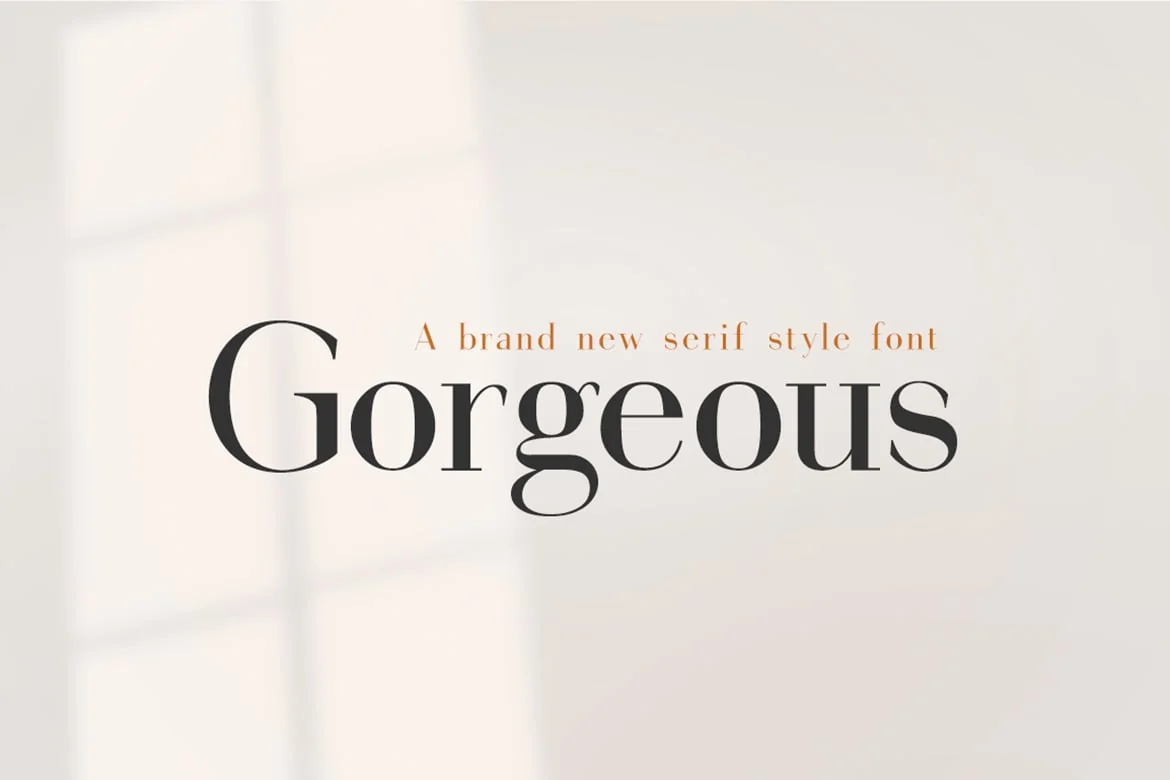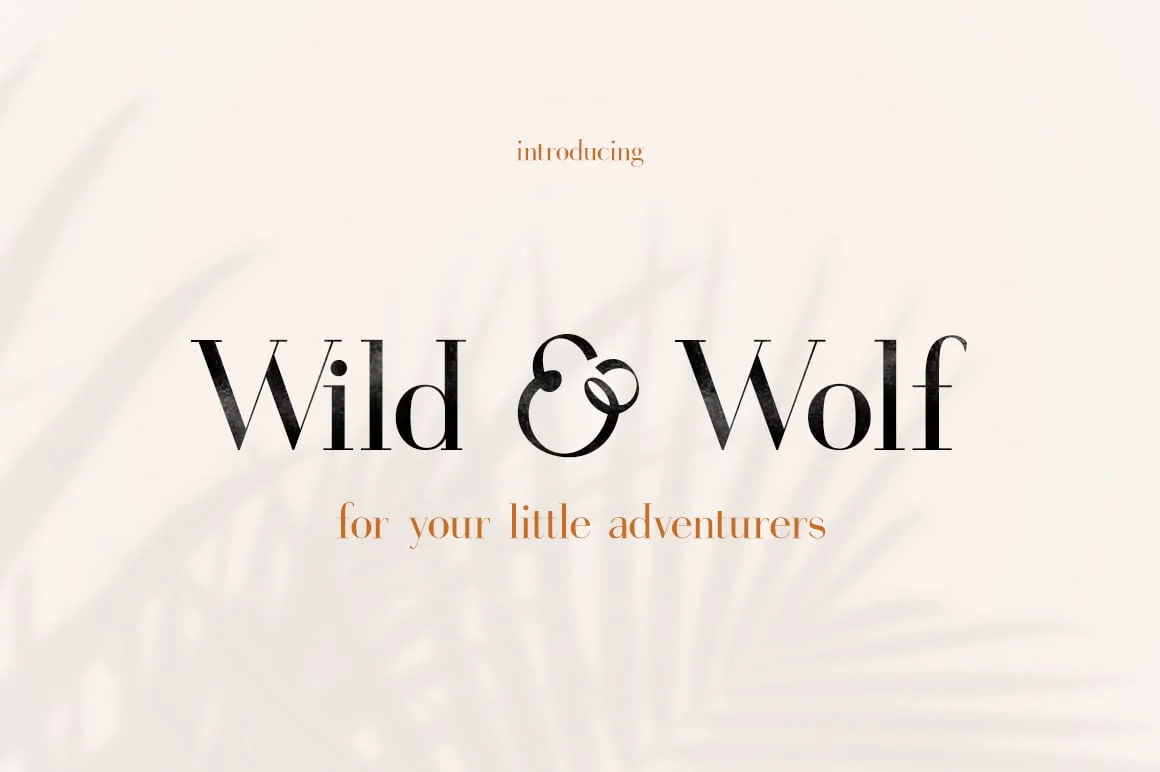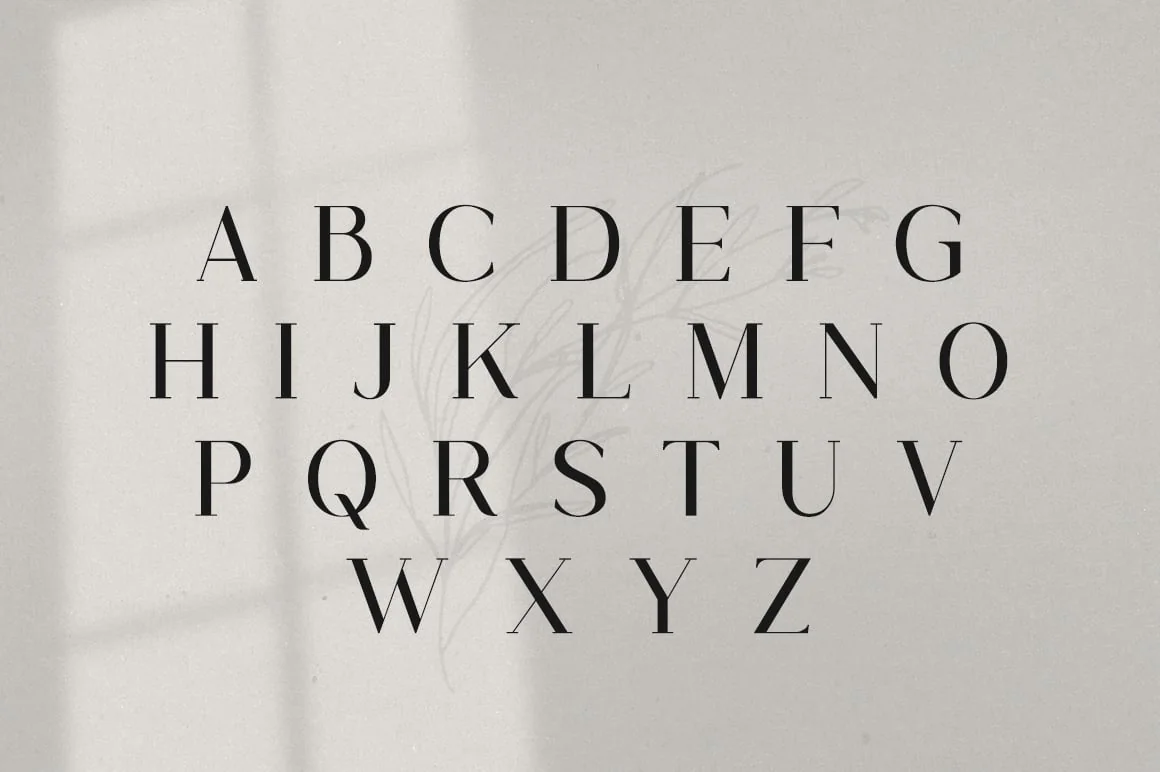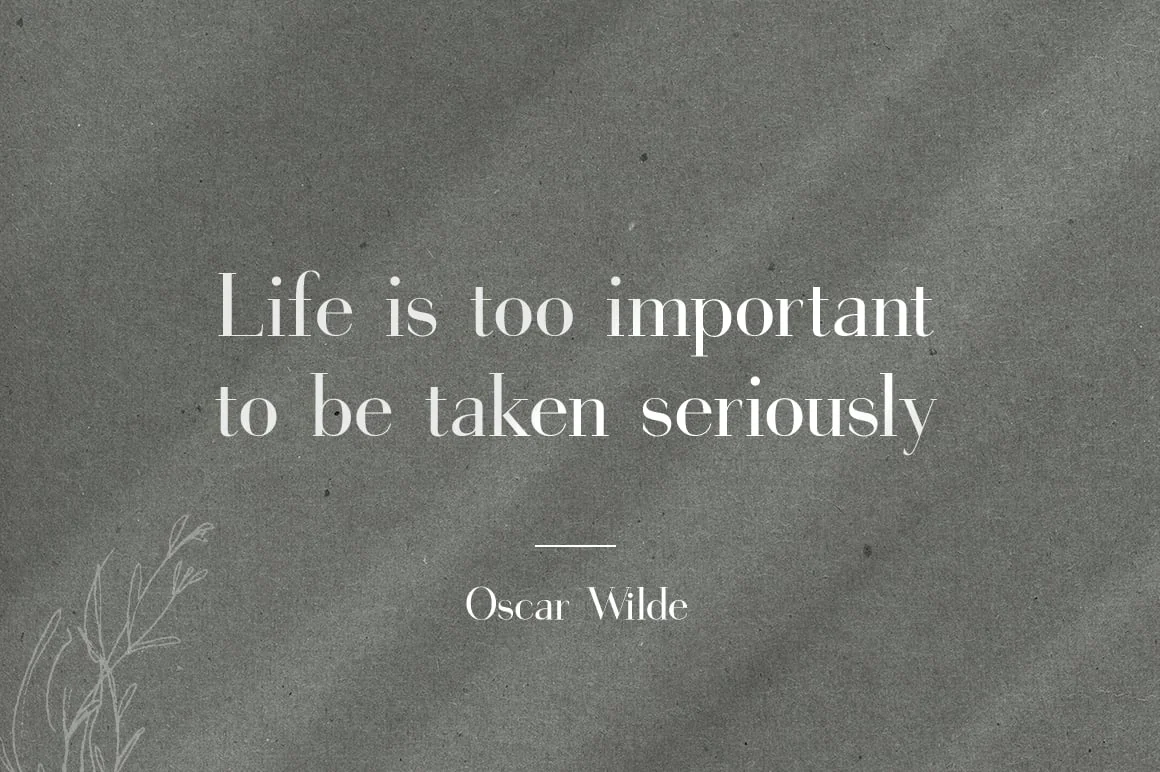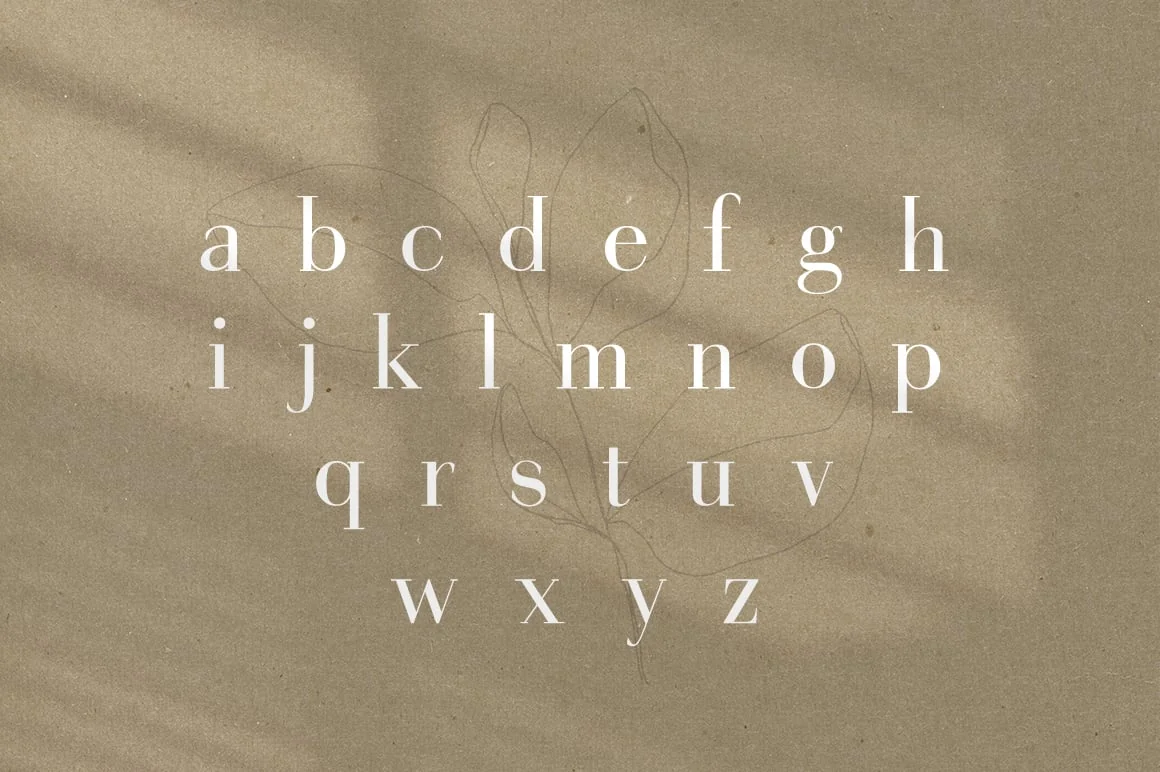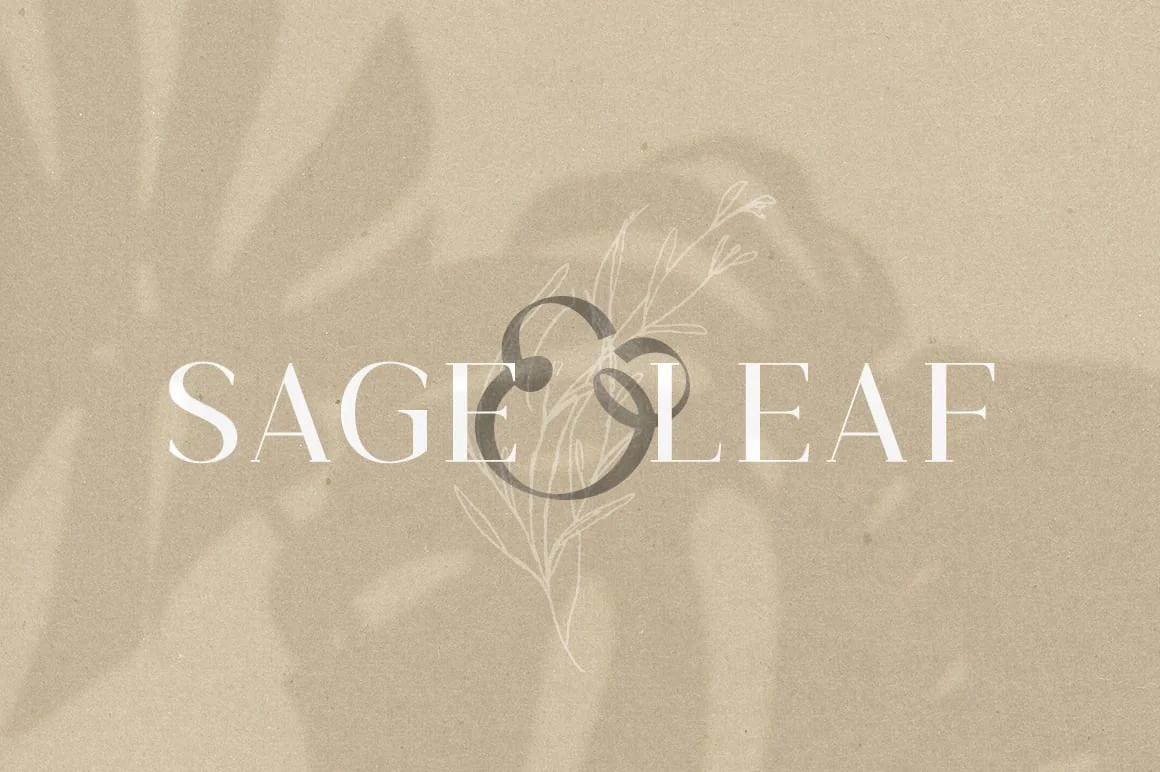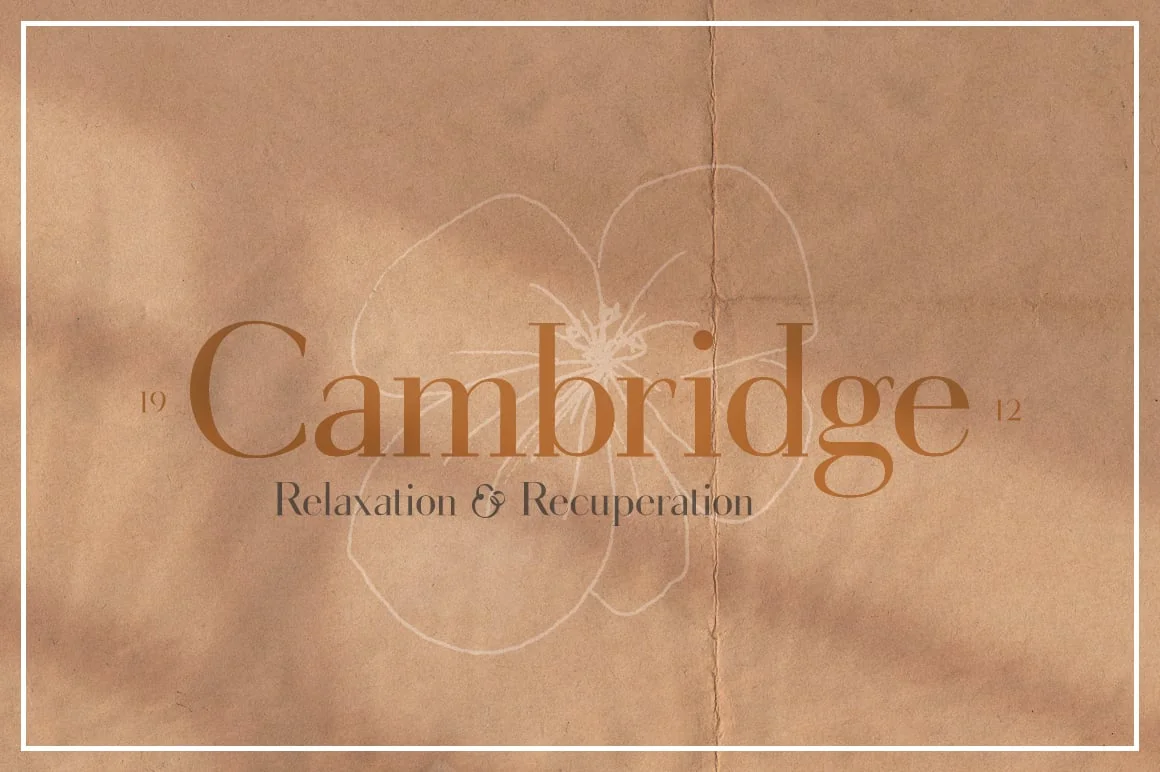
Gorgeous Serif Font
Ok, so we may be a little biased but our new font is simply gorgeous! That’s why we have named it the Gorgeous Serif and it works so well in modern settings as well as paired with fun scripts. We love how easy it is to use in designs and know you will too.